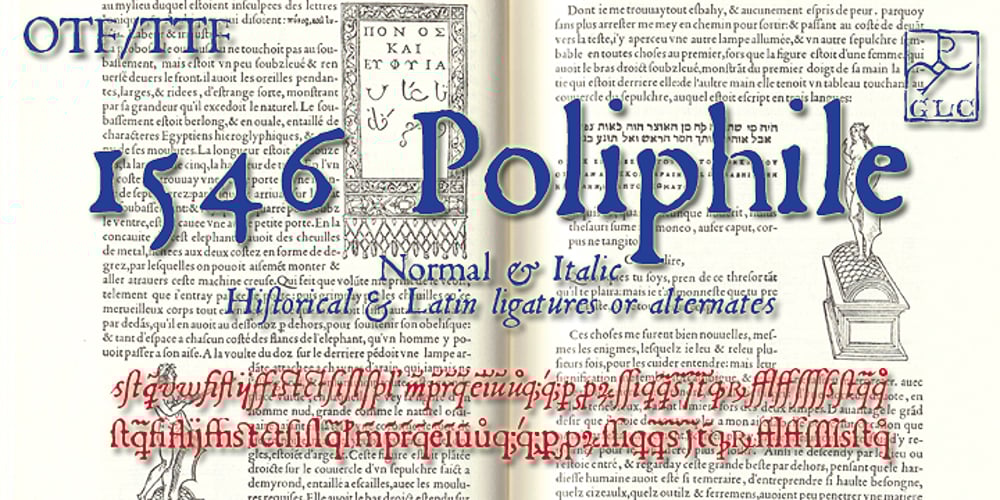
1546 Poliphile
1546 Poliphile font
1546 Poliphile Font Family was designed by published by GLC. 1546 Poliphile contains 2 styles and family package options. This family was inspired from the French edition of Hypnerotomachie de Poliphile (“The Strife of Love in a Dream”) attributed to Francesco Colonna, 1467 printed in 1546 in Paris by Jacques Kerver. He was using a Garamond set (look at our 1592 GLC Garamond), including two styles: Normal and Italic (Normal carved by Claude Garamond, Italic we don’t know; it was an Italic pattern very often in use in Paris at that time). We have modified the slant angle of the Capitals used with Italics because the Normal capitals were used in both styles in the original. The present font includes all of the specific latin abbreviations and ligatures used in this edition (with a few differences between the two styles). Added are the accented characters and a few others not in use in this early period of printing. Decorated letters such as 1512 Initials, 1550 Arabesques, 1565 Venetian, or 1584 Rinceau can be used with this family without anachronism.